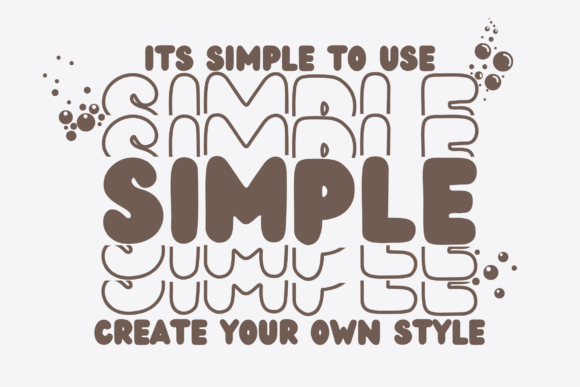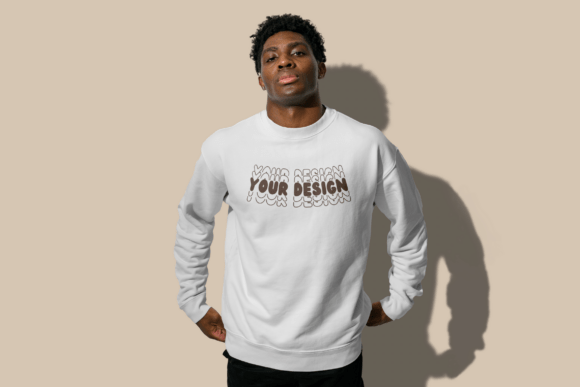
Bubble Stacked Font
Immerse yourself in a world of bubbliness with the Bubble Stacked Font! This exuberant display typeface graces you with a unique stacked effect, ideal for infusing your designs with a playful spirit. Its audaciously bold, full-bodied letters render a dynamic and attention-grabbing facade. The font is a dream for children’s projects, party invitations, or branding endeavors. Its striking character is perfectly suited for poster designing, social media graphics, or any design that craves a bold, whimsical personality.